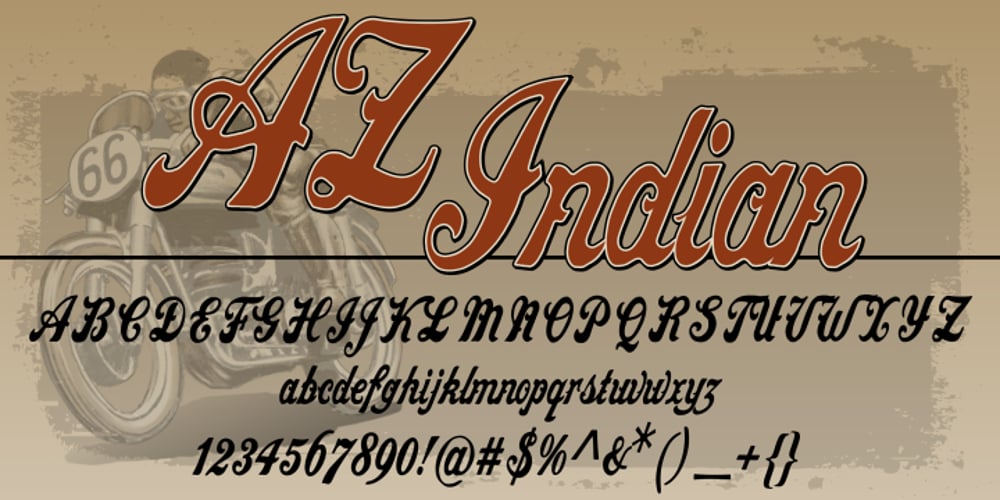
AZ Indian Font Family was designed by published by Artist of Design. AZ Indian contains 1 styles and family package options. AZ Indian font is inspired from the original early 1900’s Indian Motorcycle Logo. This font is designed for use as a worn and antiqued headline.